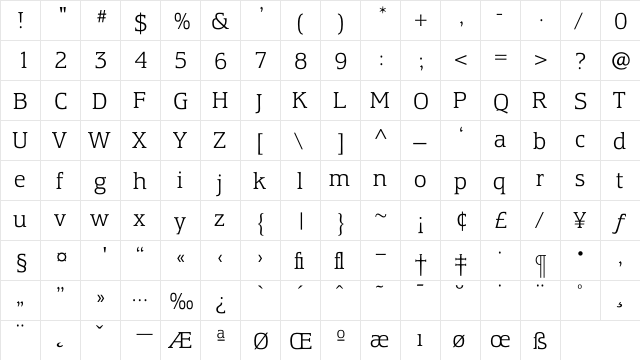
EquestrienneLight Regular
Design Context for EquestrienneLight Typeface
EquestrienneLight is a composed and adaptable typeface that performs quietly and consistently across a wide range of design contexts. Its slender proportions lend an understated elegance to any composition.